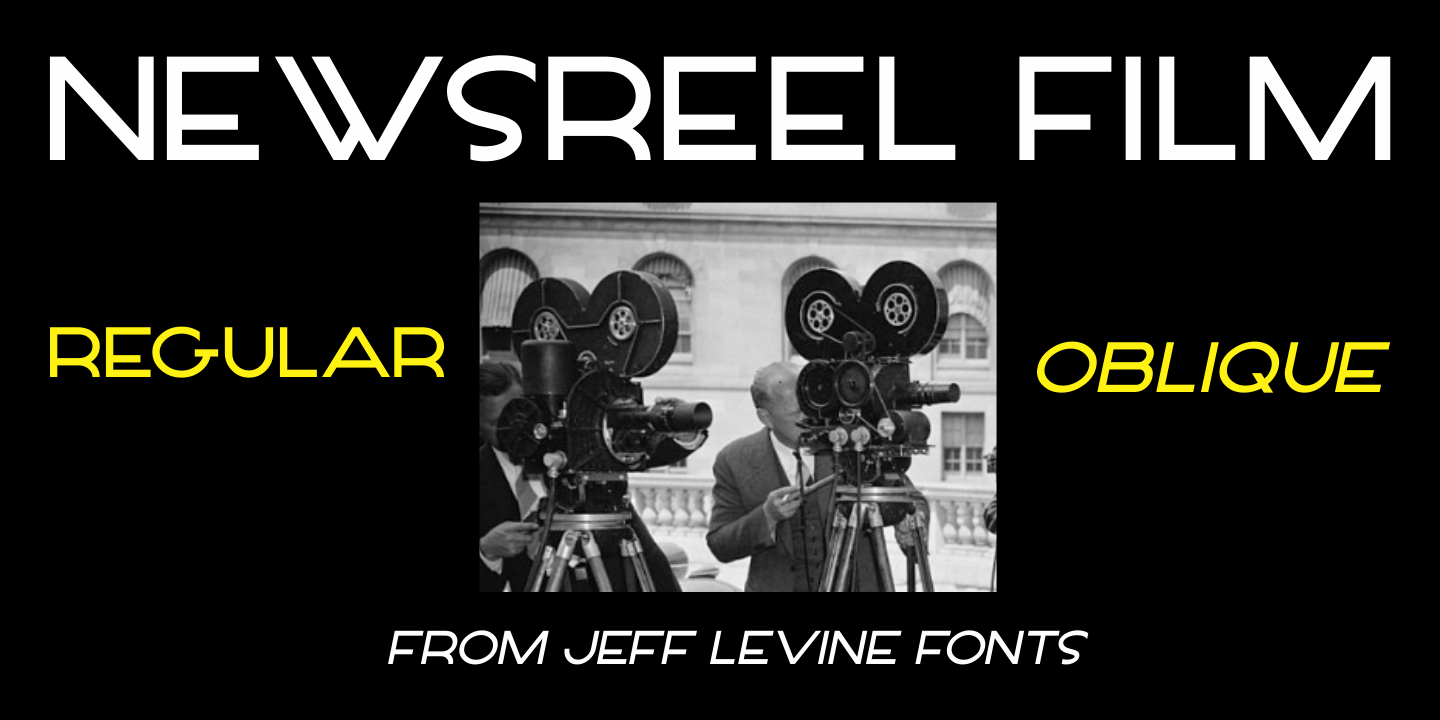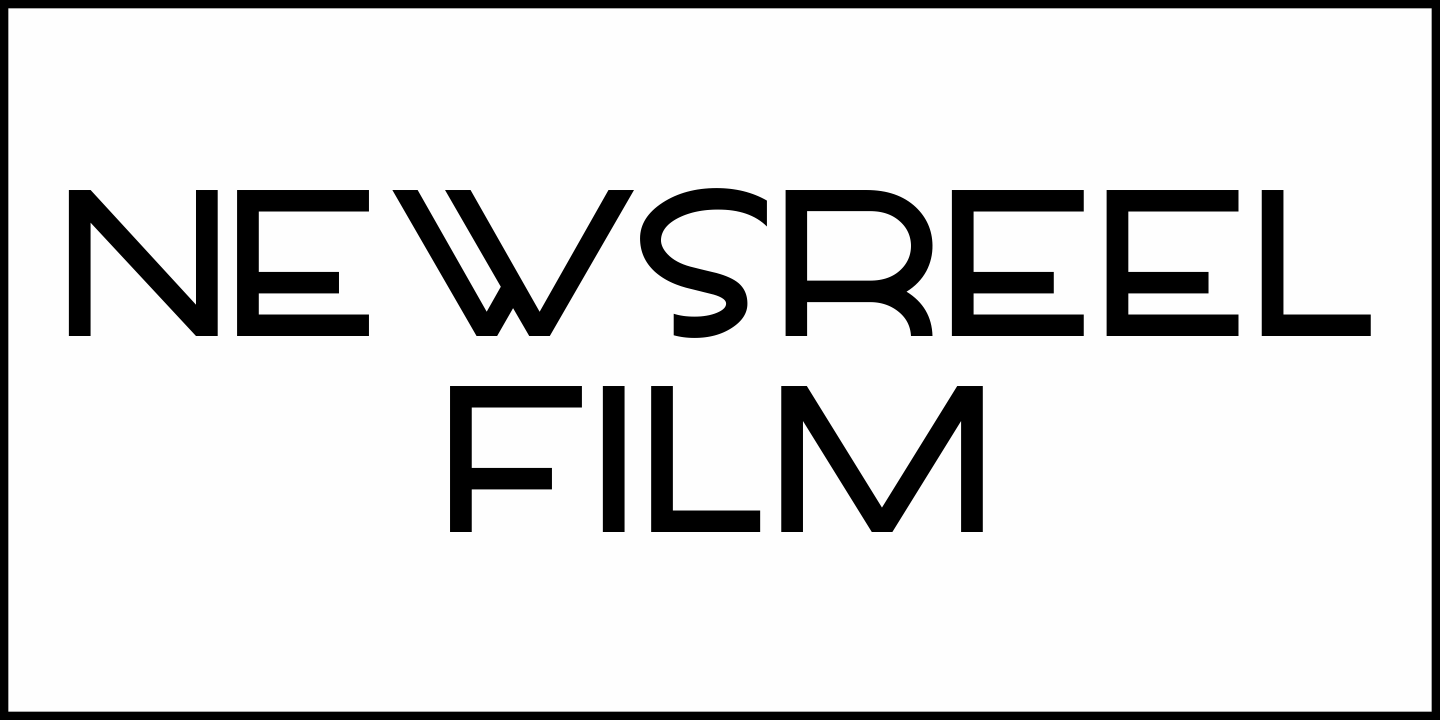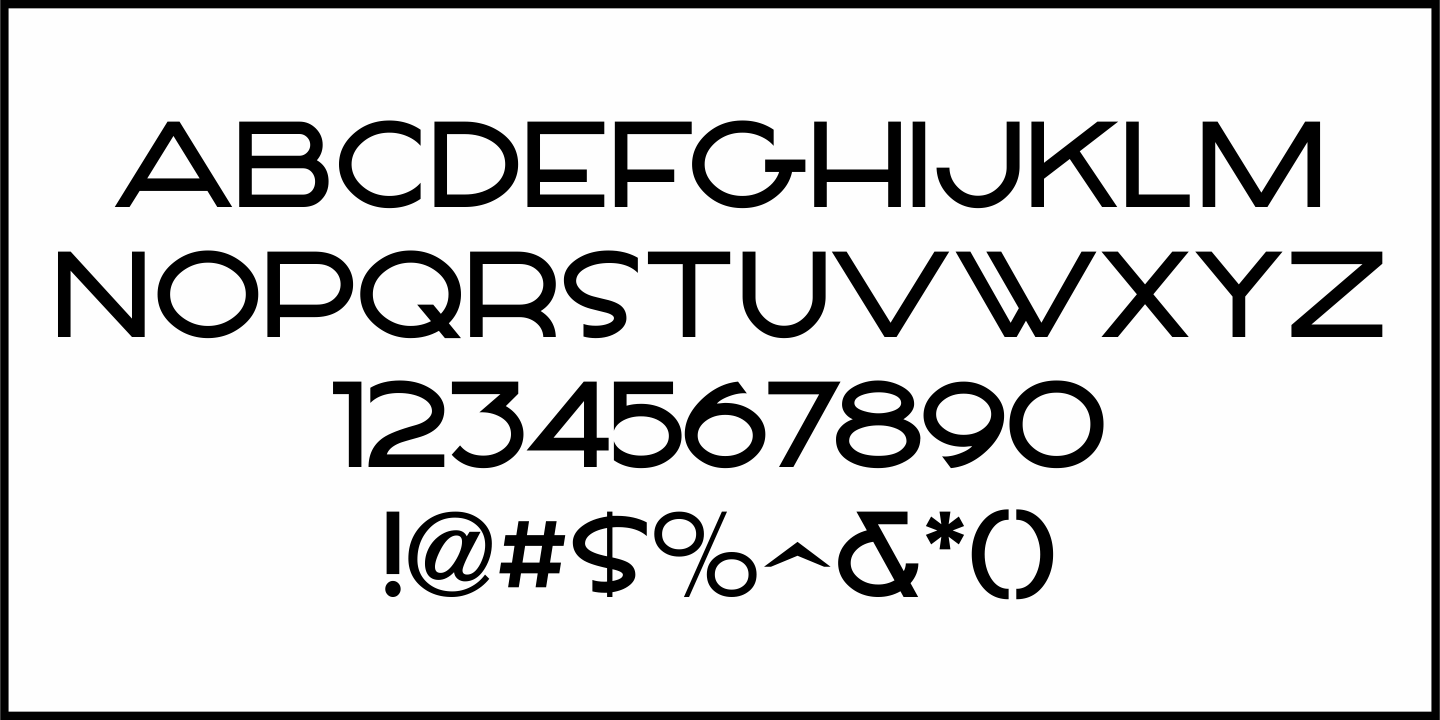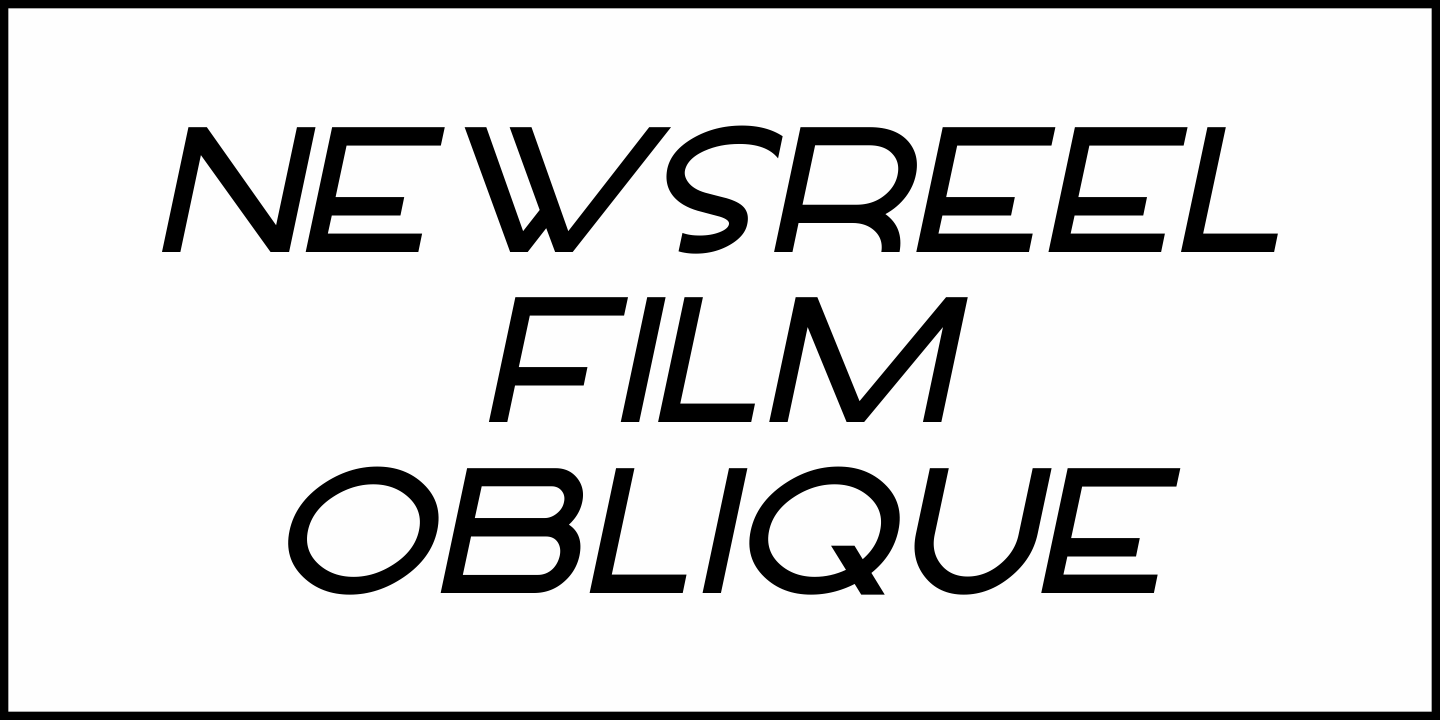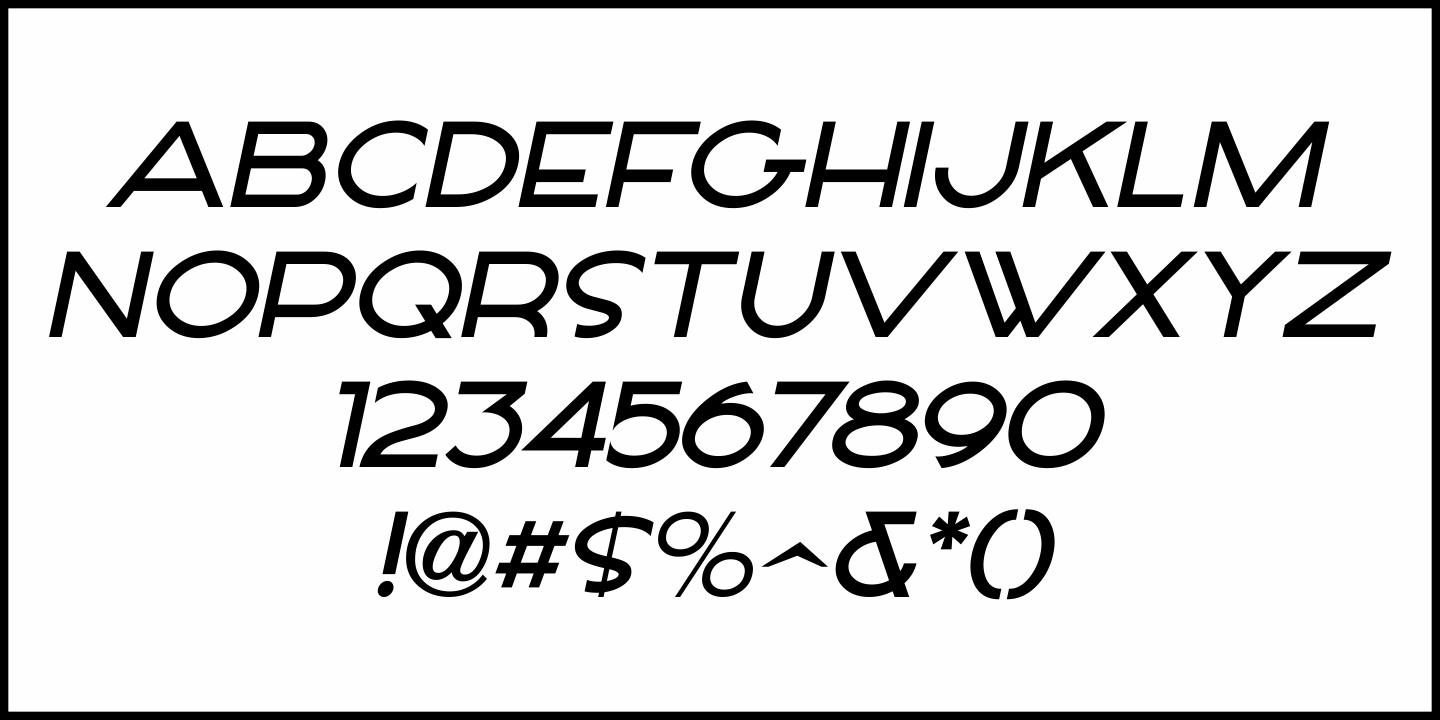
Newsreel Film
An ad carried in a 1919 edition of Moving Picture World for Hearst News had some of the ad copy hand lettered in a wide sans serif design with slight Art Nouvueau influences.
This is now available as Newsreel Film JNL in both regular and oblique versions.
Hearst Metrotone News produced silent newsreels for the Fox Film Corp. (the precursor to 20th Century Fox) from 1919 through 1934. In 1929 they introduced sound newsreels, but left Fox in 1934 to align with MGM.
Because William Randolph Hearst often created controversy, and because moviegoers in 1936 even booed the name "Hearst" when it appeared on screen, the name of the newsreels was changed to News of the Day in 1936. The series remained under that name until Hearst's last newsreels were released in 1967.